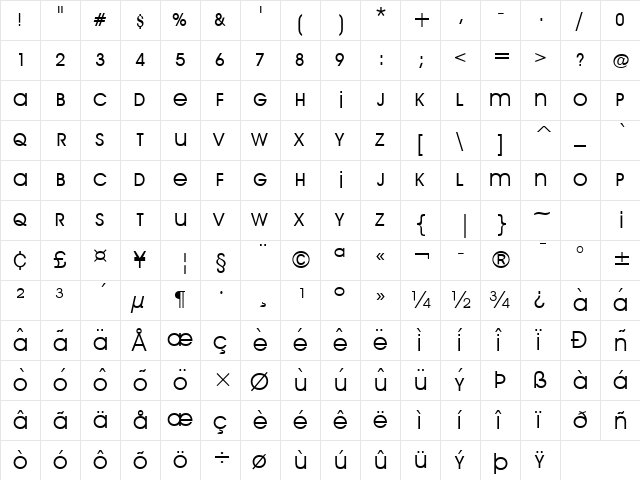
Arri貥 Garde Regular Font Preview
Arri貥 Garde Regular
Arri貥 Garde Regular Font Details
Design Context for Arri貥 Garde Typeface
Arri貥 Garde is a composed and adaptable typeface that performs quietly and consistently across a wide range of design contexts.